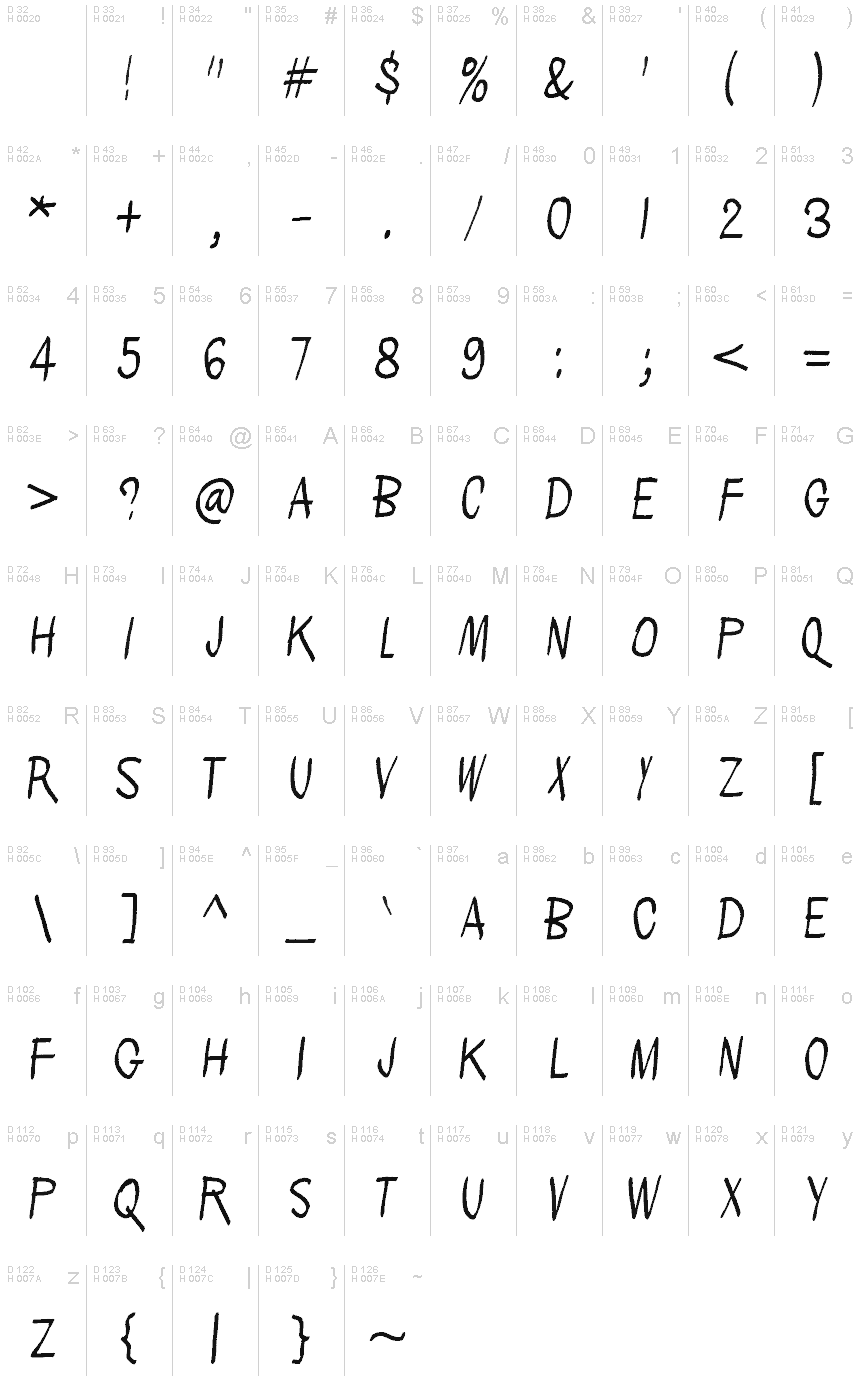
People per square kilometer
"PEOPLE PER SQUARE KILOMETER" is a captivating handwritten font crafted by the talented designer junkohanhero. With its organic, fluid strokes and a touch of imperfection, this font exudes a sense of authenticity and personality.
The varied line widths and natural flourishes give the text a distinct, hand-drawn quality, lending a sense of warmth and character to any design. This font shines in applications where a personal, hand-crafted aesthetic is desired, such as editorial layouts, product packaging, or branding materials.
Its versatility allows it to seamlessly transition between formal and casual contexts, making it a valuable addition to any designer's toolkit.